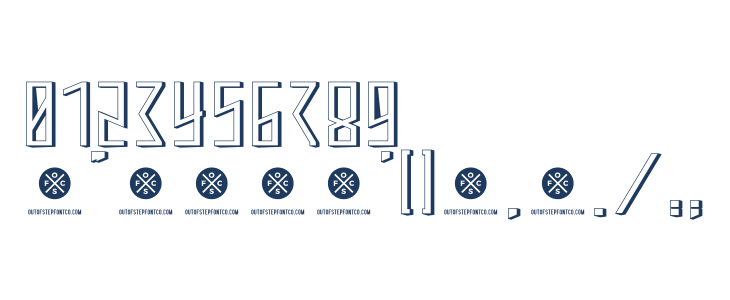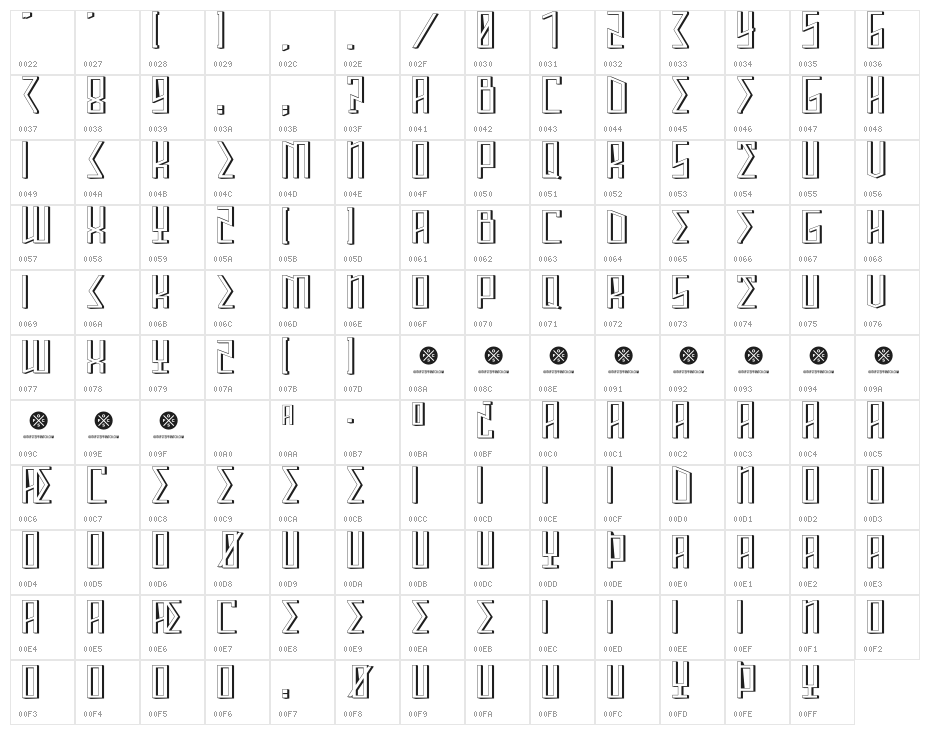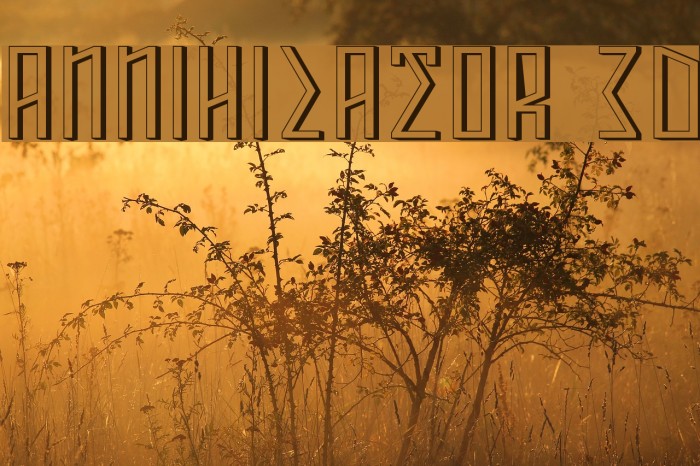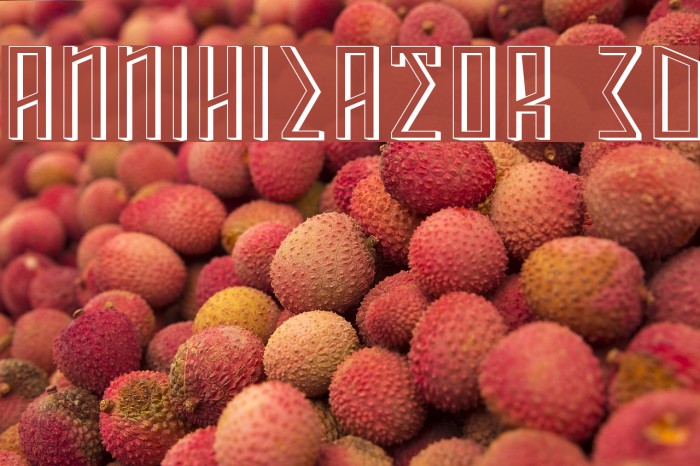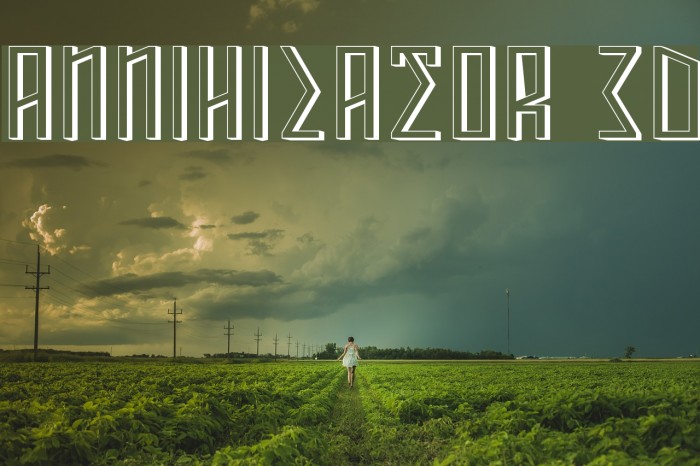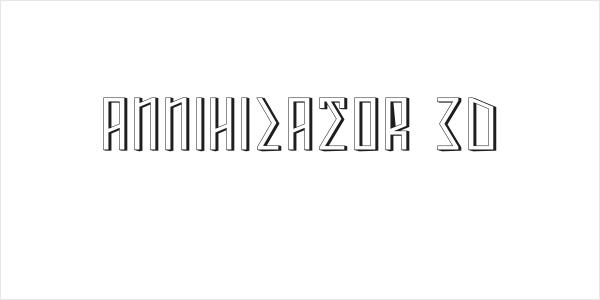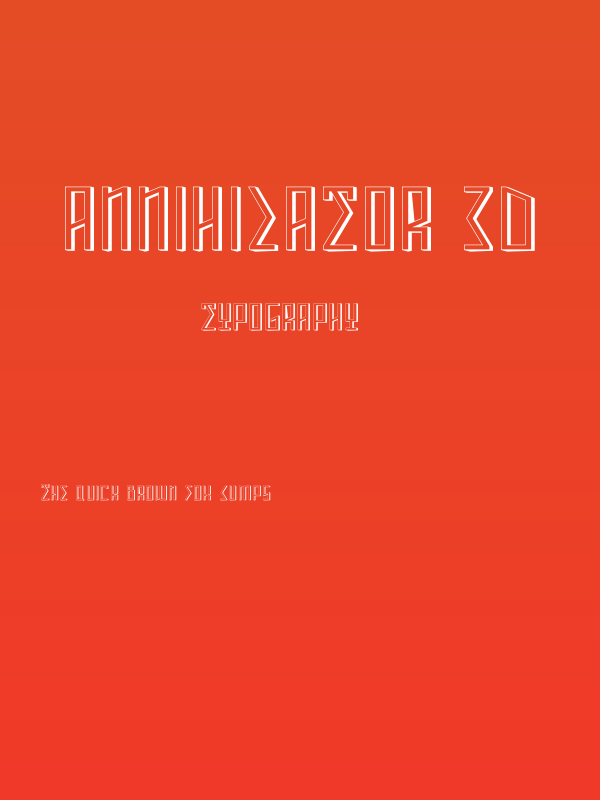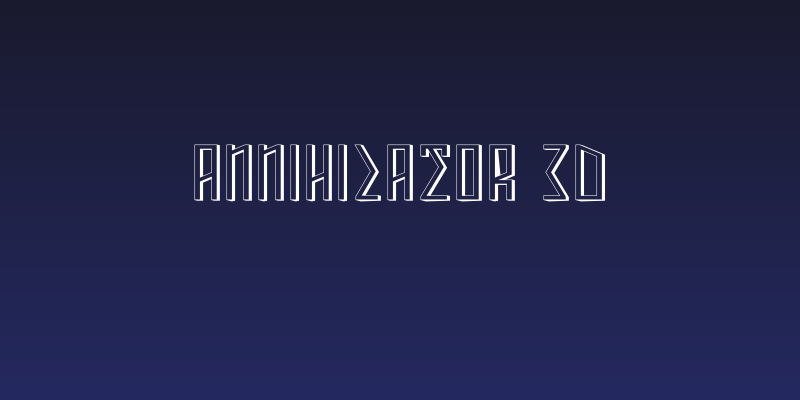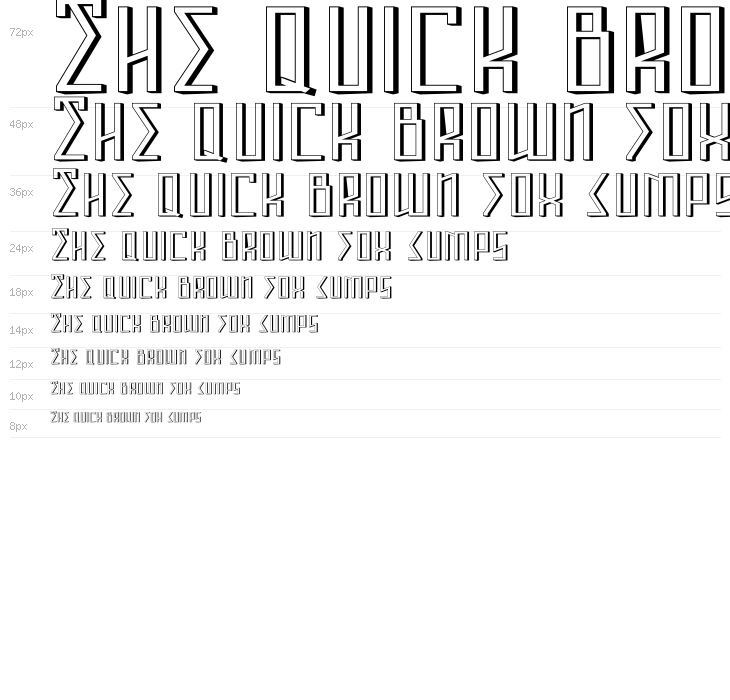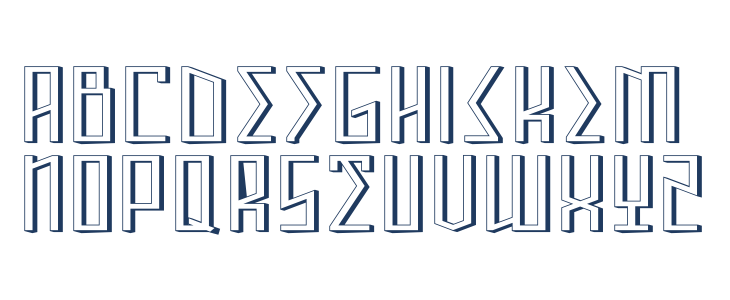
ANNIHILATOR 3D Font
ANNIHILATOR 3D Description
This font features a bold, geometric design with a distinct 3D effect, characterized by sharp angles and a futuristic aesthetic. The letters are outlined with a shadow that gives them a sense of depth and dimension. The uppercase and lowercase letters maintain a consistent style, with angular lines and a uniform thickness that contribute to a cohesive look. The numerals and special characters follow the same design principles, ensuring a harmonious appearance across all glyphs. This font is particularly striking and would stand out in any design project requiring a modern, edgy feel.
| Proposed Projects | Ideal for video game titles, sci-fi movie posters, tech branding, and modern graphic design projects. |